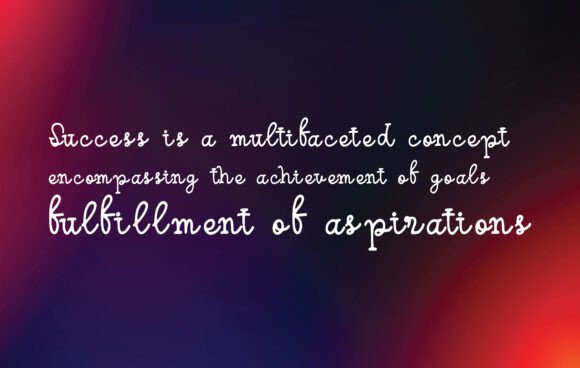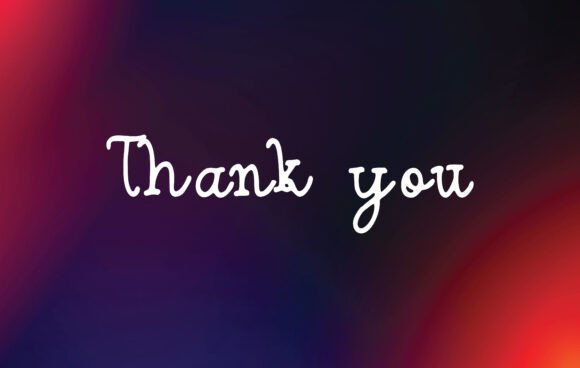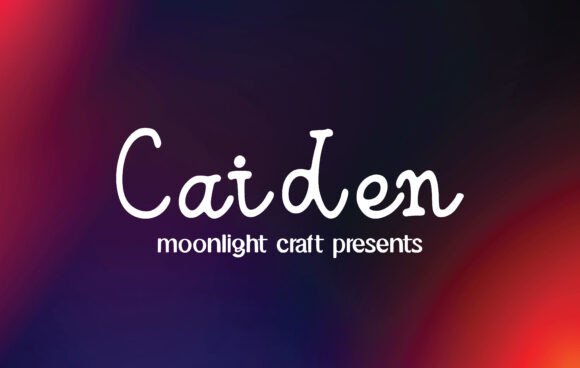
Introducing Caiden Font: Elevate Your Creative Projects with a Lovely Handwritten Style
Are you a designer, crafty enthusiast, or simply someone who appreciates beautiful typography? Look no further than Caiden Font, a stunning handwritten font that can take your creative ideas to new heights. With its unique charm and versatility, Caiden is the perfect choice for creating eye-catching logos, branding, and quotes that leave a lasting impression.
The Beauty of Caiden Font
Caiden Font is a meticulously crafted handwritten font that exudes a sense of elegance and sophistication. Its flowing lines, delicate curves, and subtle imperfections come together to create a truly unique and captivating visual experience. Whether you’re working on a personal project or a client’s, Caiden’s lovely and beautiful design is sure to inspire and elevate your creative vision.
Unleash Your Creativity with Caiden
Caiden Font has the potential to transform your creative ideas into stunning visual realities. Its versatility makes it an excellent choice for a wide range of applications, from:
• Logos: Create memorable and impactful logos that capture the essence of your brand or business.
• Branding: Develop a consistent visual identity that showcases your personality and style.
• Quotes: Add a touch of elegance and sophistication to your inspirational quotes and phrases.
• Stationery: Elevate your stationery designs, such as invitations, greeting cards, and letters.
• Digital Content: Enhance your blog posts, social media graphics, and website content with Caiden’s beautiful handwritten style.
Why Choose Caiden Font?
So, what sets Caiden Font apart from other fonts? Here are just a few reasons why Caiden is an excellent choice for designers and crafters:
• Unique Style: Caiden’s handwritten style is both distinctive and captivating, making it perfect for projects that require a personal touch.
• High-Quality Design: Caiden Font is meticulously crafted to ensure that every letter, curve, and detail is of the highest quality.
• Easy to Read: Despite its elegant and cursive nature, Caiden Font remains highly legible, making it suitable for both digital and print applications.
• Versatile: Caiden can be used for a wide range of creative projects, from logos and branding to quotes and stationery.
Tips for Using Caiden Font
To get the most out of Caiden Font, here are a few tips to keep in mind:
• Experiment with Sizes: Caiden Font looks great in various sizes, from large headings to smaller body text.
• Play with Colors: Caiden’s beauty shines through in a variety of colors, so don’t be afraid to experiment and find the perfect hue for your project.
• Mix and Match: Combine Caiden Font with other fonts to create a unique and visually appealing typography combination.
In conclusion, Caiden Font is a lovely and beautiful handwritten font that has the potential to elevate your creative projects to new heights. Its unique style, high-quality design, and versatility make it an excellent choice for designers, crafters, and anyone looking to add a touch of elegance and sophistication to their work. So why wait? Discover the beauty of Caiden Font today and take your creative ideas to the next level!